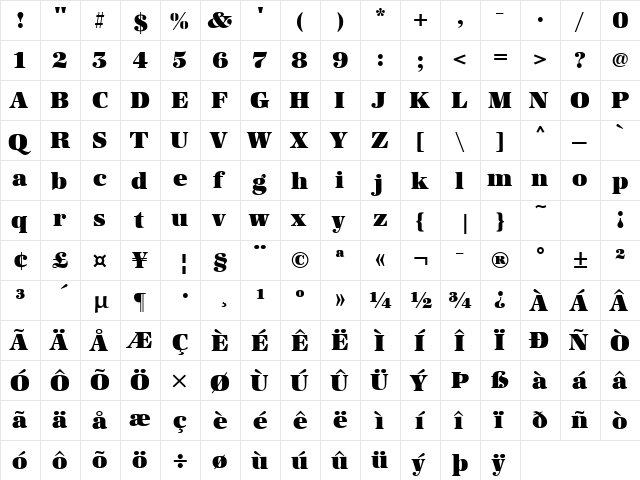
URWAntiquaAltTSup Regular
Design Context for URWAntiquaAltTSup Typeface
URWAntiquaAltTSup offers clean, dependable letterforms without strong stylistic allegiance, making it a practical choice for designers who need flexibility.